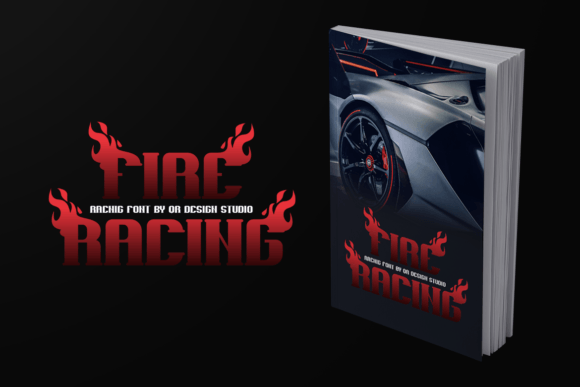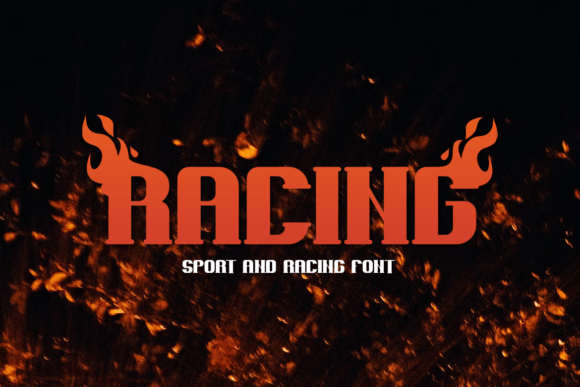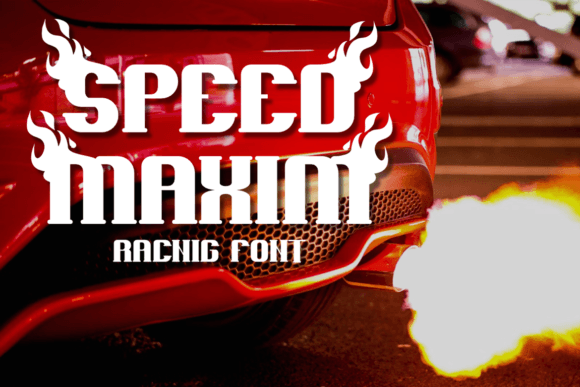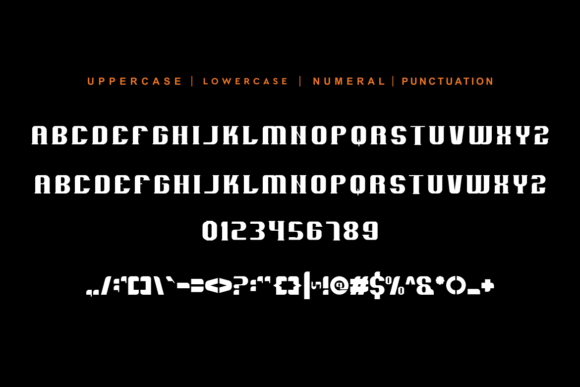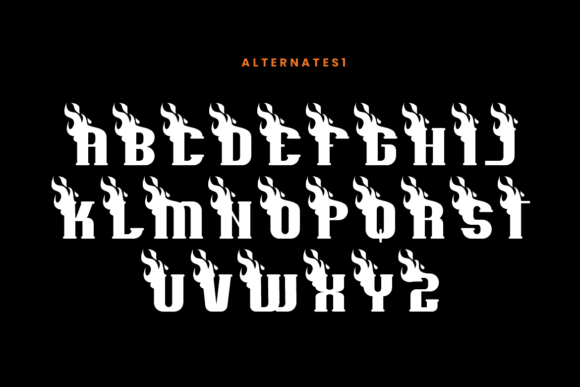
Gexo Racing Font: Elevate Your Designs with a Touch of Whimsy
Are you tired of using the same old fonts in your designs? Look no further than Gexo Racing, an incredibly cool and unique display font that’s sure to take your creations to the next level. With its modern yet whimsical style, Gexo Racing is the perfect addition to any design project that needs a touch of magic.
What Makes Gexo Racing So Special?
Gexo Racing is more than just a font – it’s an experience. Its unique blend of modern and playful elements creates a sense of excitement and energy that’s hard to ignore. Whether you’re working on a logo, a poster, or a digital project, Gexo Racing is sure to add a touch of personality and flair. The font’s whimsical style is perfect for designers and crafters who want to create something that’s truly one-of-a-kind.
Key Features of Gexo Racing Font
- Unique and Modern Style: Gexo Racing’s modern design makes it perfect for projects that need a fresh and contemporary look.
- Whimsical Elements: The font’s playful elements add a touch of magic to any design, making it perfect for projects that need a bit of personality.
- Highly Versatile: Gexo Racing can be used for a wide range of projects, from logos and posters to digital projects and more.
- Easily Readable: Despite its unique style, Gexo Racing is still highly readable, making it perfect for use in a variety of contexts.
How to Use Gexo Racing in Your Designs
Using Gexo Racing in your designs is easy. Here are a few tips to get you started:
- Pair it with a Simple Font: Gexo Racing’s bold style makes it perfect for headlines and titles. Pair it with a simple font for body text to create a striking contrast.
- Experiment with Colors: Gexo Racing looks great in a variety of colors. Experiment with different hues and shades to find the perfect look for your project.
- Use it to Add Emphasis: Gexo Racing’s unique style makes it perfect for adding emphasis to certain words or phrases. Use it to draw attention to key elements in your design.
Why Designers and Crafters Love Gexo Racing
Designers and crafters love Gexo Racing for a variety of reasons. Here are a few:
- It’s Unique: Gexo Racing’s unique style makes it stand out from other fonts. Designers and crafters love using fonts that help their work stand out from the crowd.
- It’s Versatile: Gexo Racing can be used for a wide range of projects, making it a valuable addition to any designer’s toolkit.
- It’s Easy to Use: Despite its unique style, Gexo Racing is still highly readable and easy to use. This makes it perfect for designers and crafters of all skill levels.